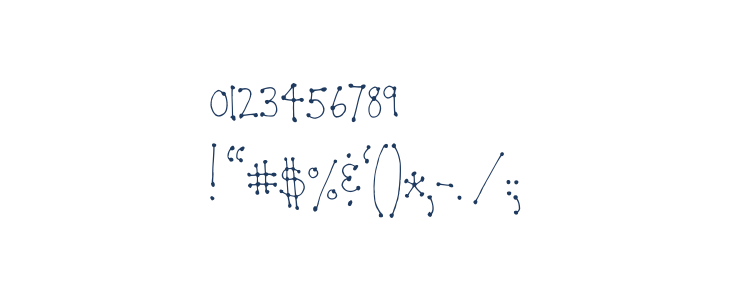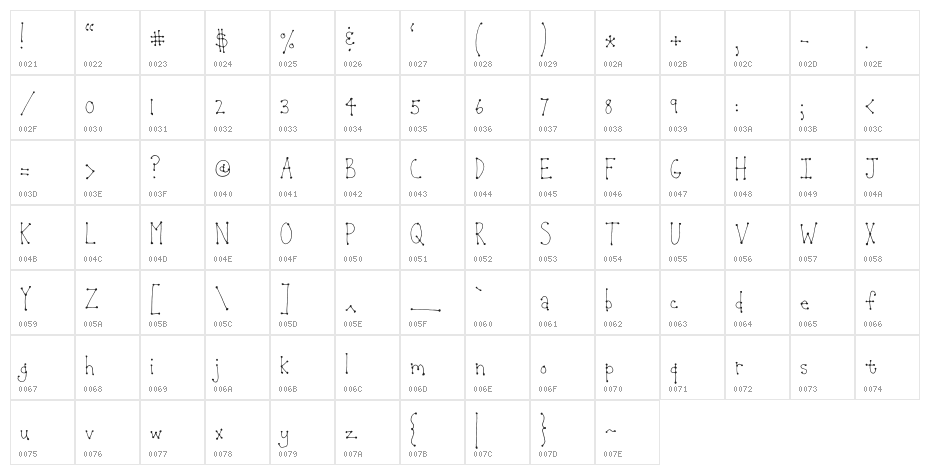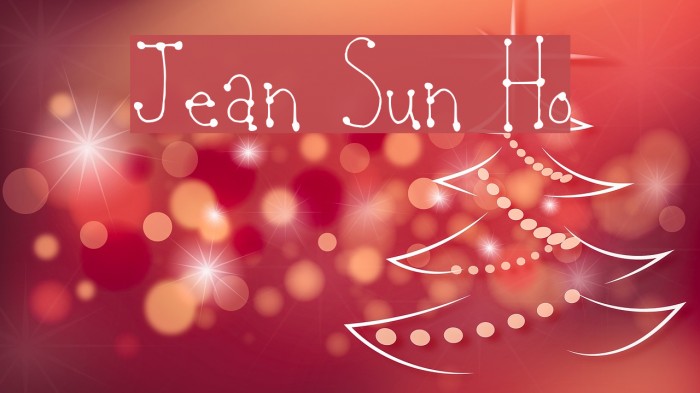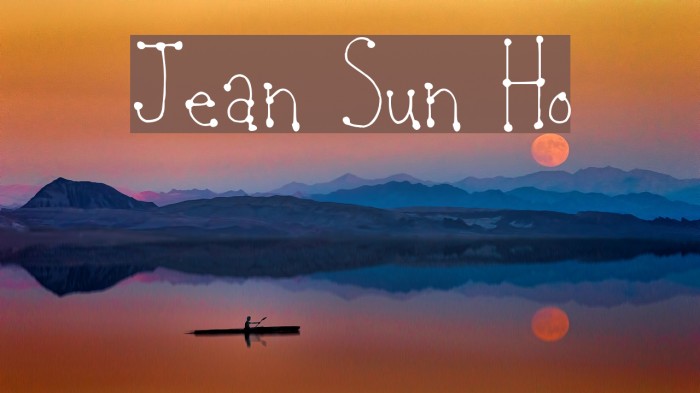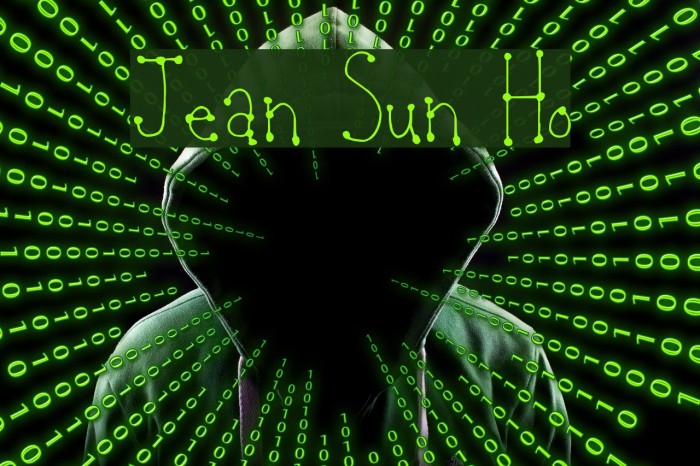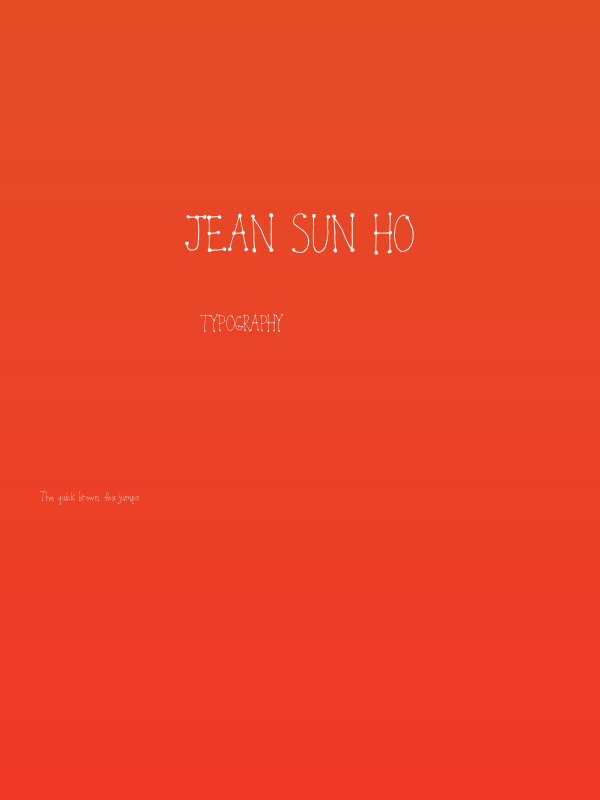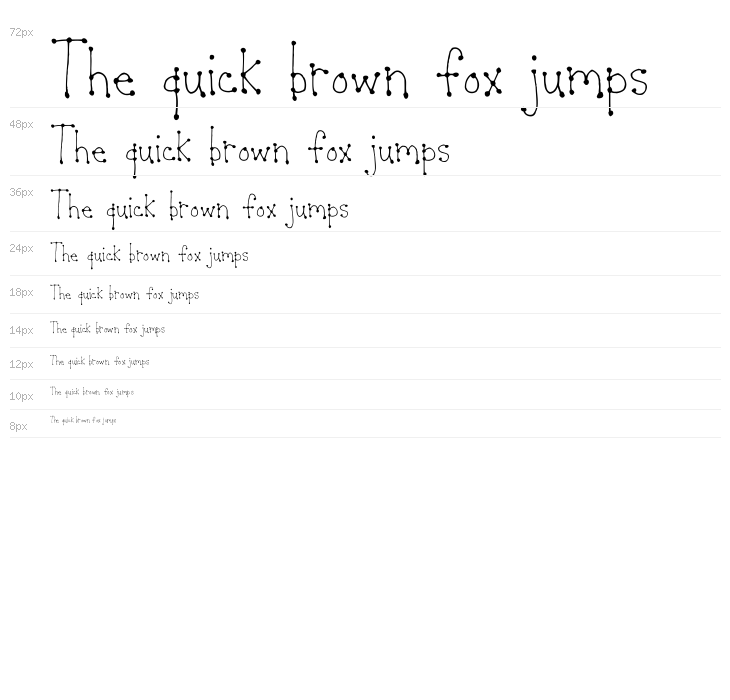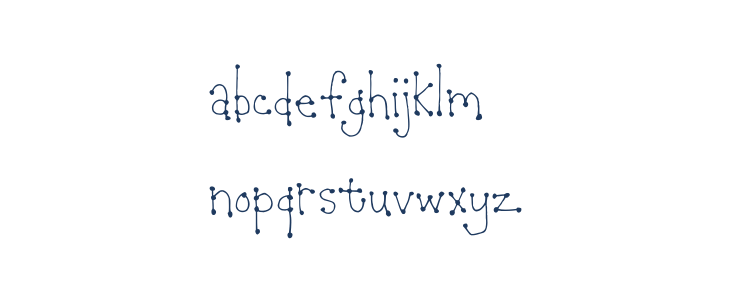
Jean Sun Ho Font
Jean Sun Ho Description
This font features a playful and whimsical design, characterized by thin, uneven strokes that give it a hand-drawn appearance. Each letter is adorned with small dots at the ends of strokes, adding a unique and decorative touch. The overall style is casual and artistic, making it suitable for creative projects. The uppercase and lowercase letters maintain a consistent style, with a slight variation in size and form that enhances its handcrafted feel. Numbers and special characters follow the same design principles, ensuring a cohesive look across all elements.
| Overall Style | Whimsical |
| Use Case | Headlines, Artistic projects, Invitations |
| Proposed Projects | Ideal for children's books, creative invitations, greeting cards, and artistic branding. |